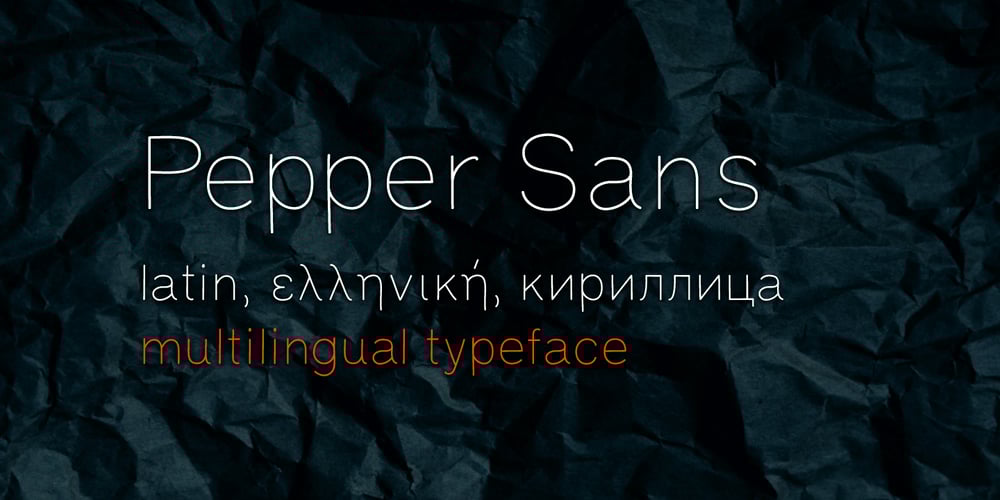
Pepper Sans
Pepper Sans font
Pepper Sans Font Family was designed by Ivana Bačanek and published by VIDI Visual Design Studio. Pepper Sans contains 5 styles and family package options. The core design of Pepper family, designed by VIDI Visual Design Studio, is the fingertip handwriting style inspired by children’s writings on windows. This distinctive low-contrast typeface combines characteristics from neo-grotesque and organic models. Warmer than most Helvetica inspired typefaces, Pepper has organic shapes, playful strokes, rounded endings, and a generous x-height which makes Pepper easy to read. This family could be used well for food packagings, content aimed for children, book covers, branding, high-impact titles and small body texts, advertising, editorial design and more. What makes Pepper Sans Vol.1 competent and more spicy then some other fonts is that it contains a set of more than 900 characters for each of 5 weights that support many Latin-based languages, Greek and Cyrillic. As the weight decreases, the typeface gains impact with becoming elegant, giving titles in (Hair, Thin or Light) a breath of fresh air. We derived a typeface family consisting of Hair, Thin, Light, Regular, Semi Bold in this Vol.1 edition.Typeface features:• 5 weights: Hair, Thin, Light, Regular, Semi Bold• Latin, Greek & Cyrillic multilingual support• More than 900 characters for each of 5 weightsFont Specs:• Created: August 2020• Files type: .ttf